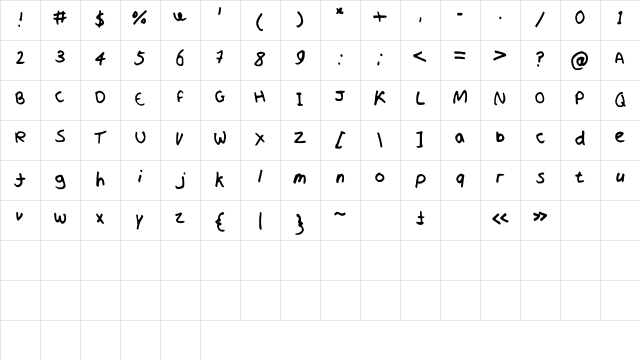
ProfessorShroom Medium
Design Context for ProfessorShroom
ProfessorShroom is a composed and adaptable typeface that performs quietly and consistently across a wide range of design contexts.
Pro Tip: Use ProfessorShroom in both headline and body roles to test its range before committing to a single application.